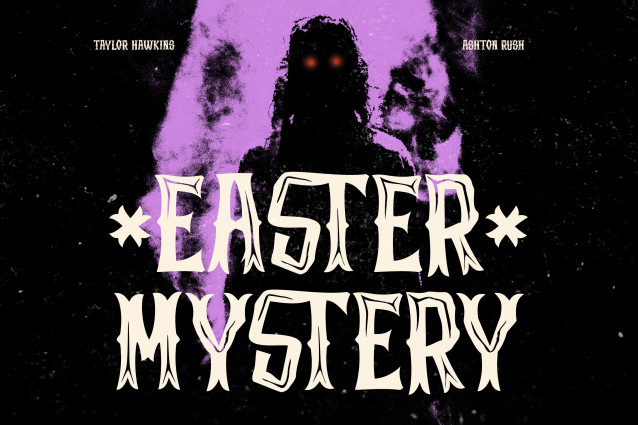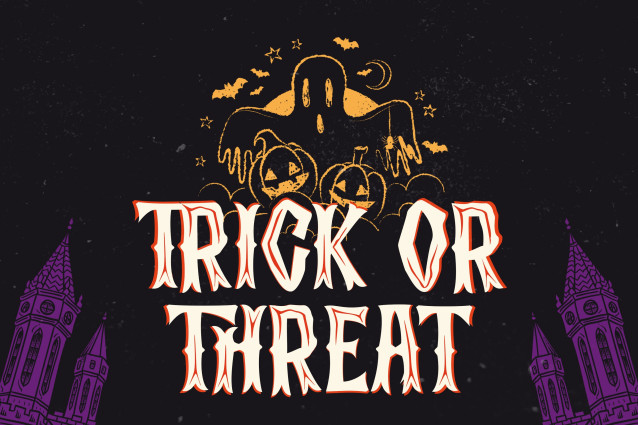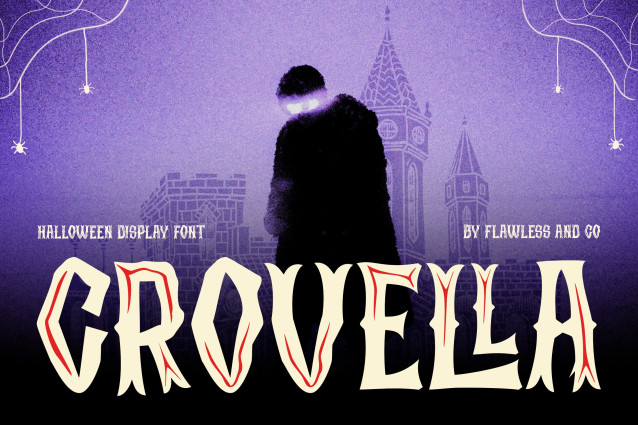
Crovella – Halloween Display Font
Crovella is a Halloween display font with a dark, horror, and decorative character. Its distinctive letterforms are designed for seasonal typography, combining a strong display structure with a spooky visual atmosphere suitable for Halloween-themed designs.
The font is designed to work effectively at large sizes, making its unique shapes suitable for headlines, titles, posters, and promotional graphics. Its Halloween-inspired character can add a mysterious and festive tone to both digital and print-based design projects.